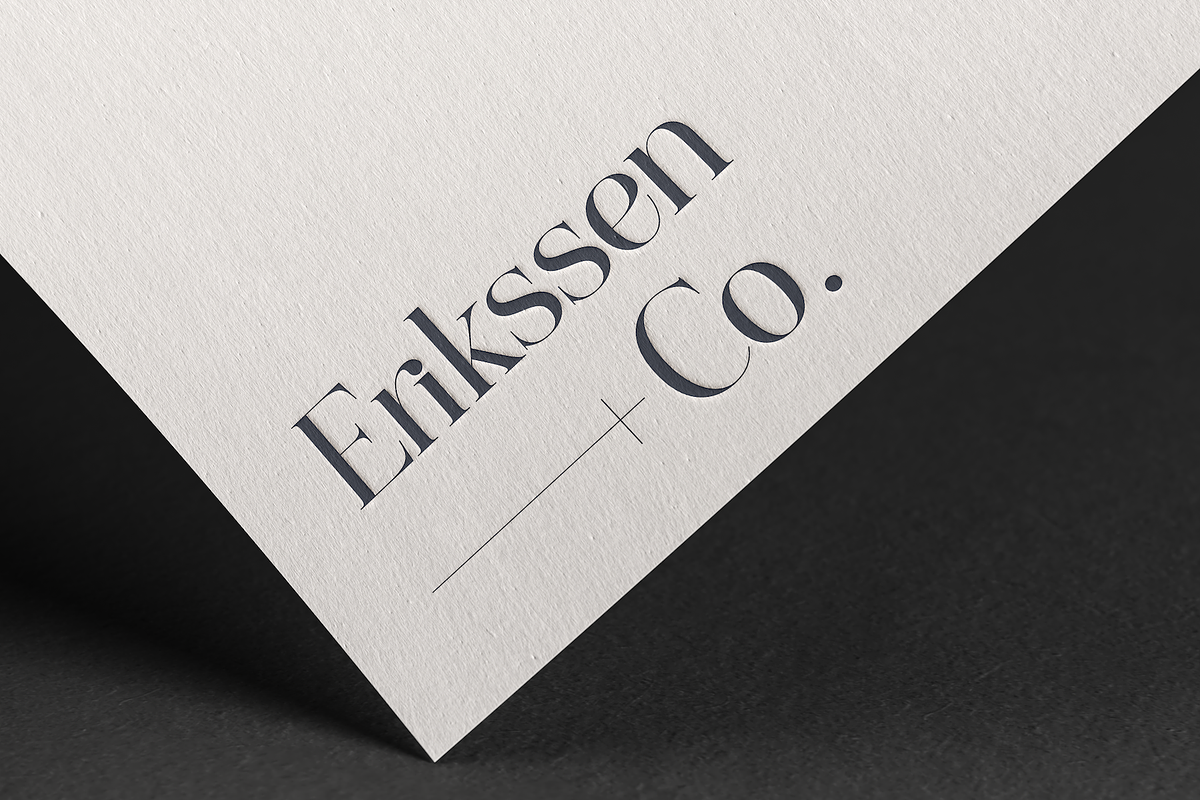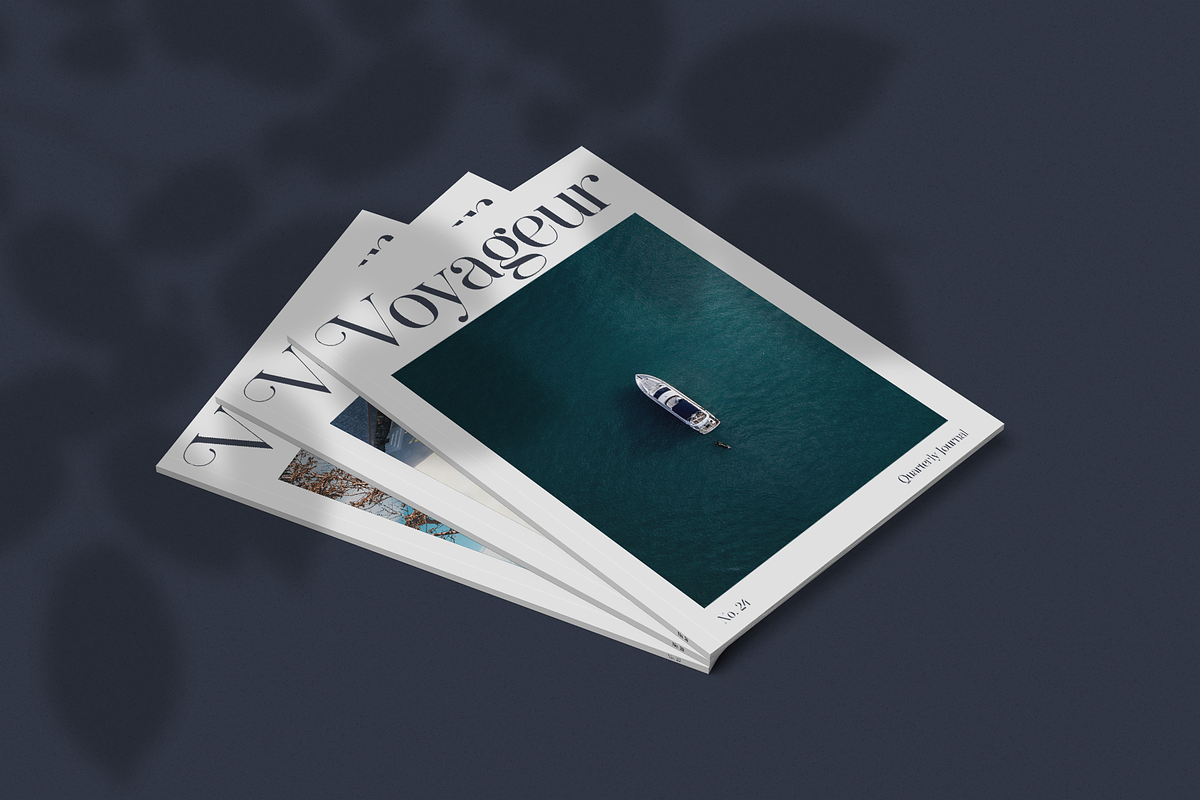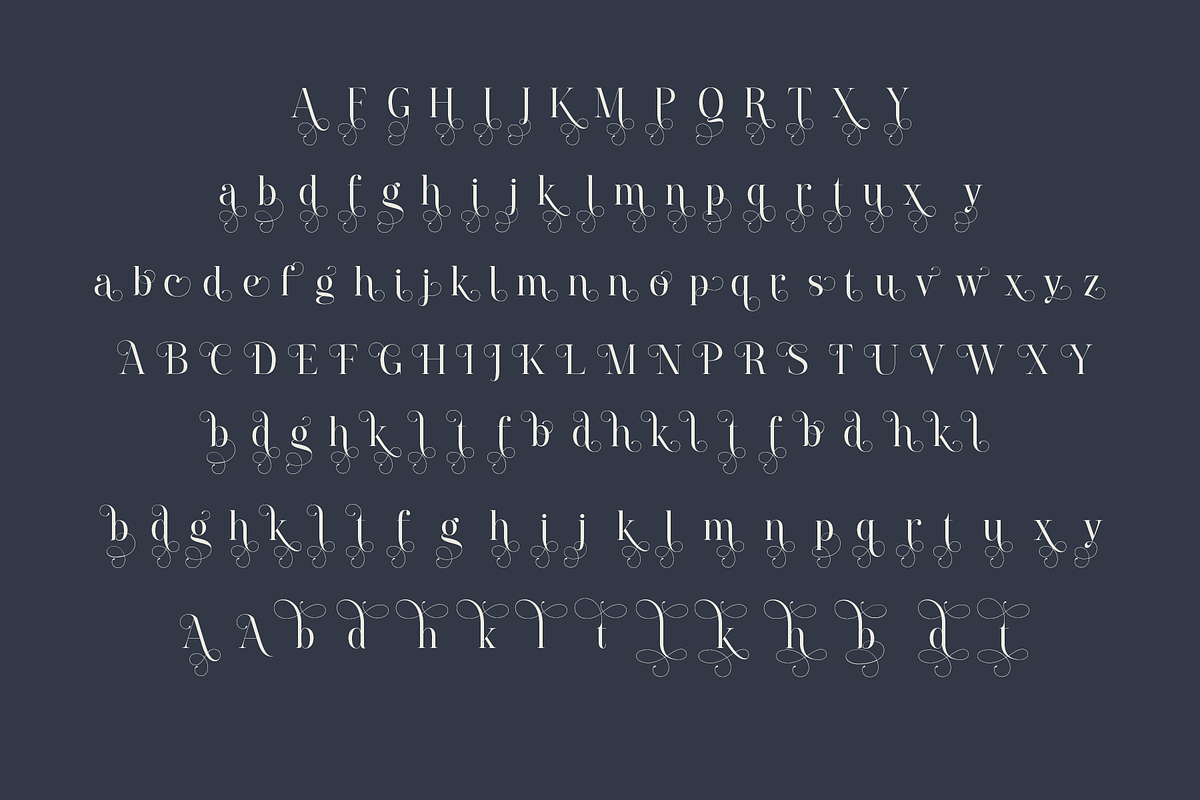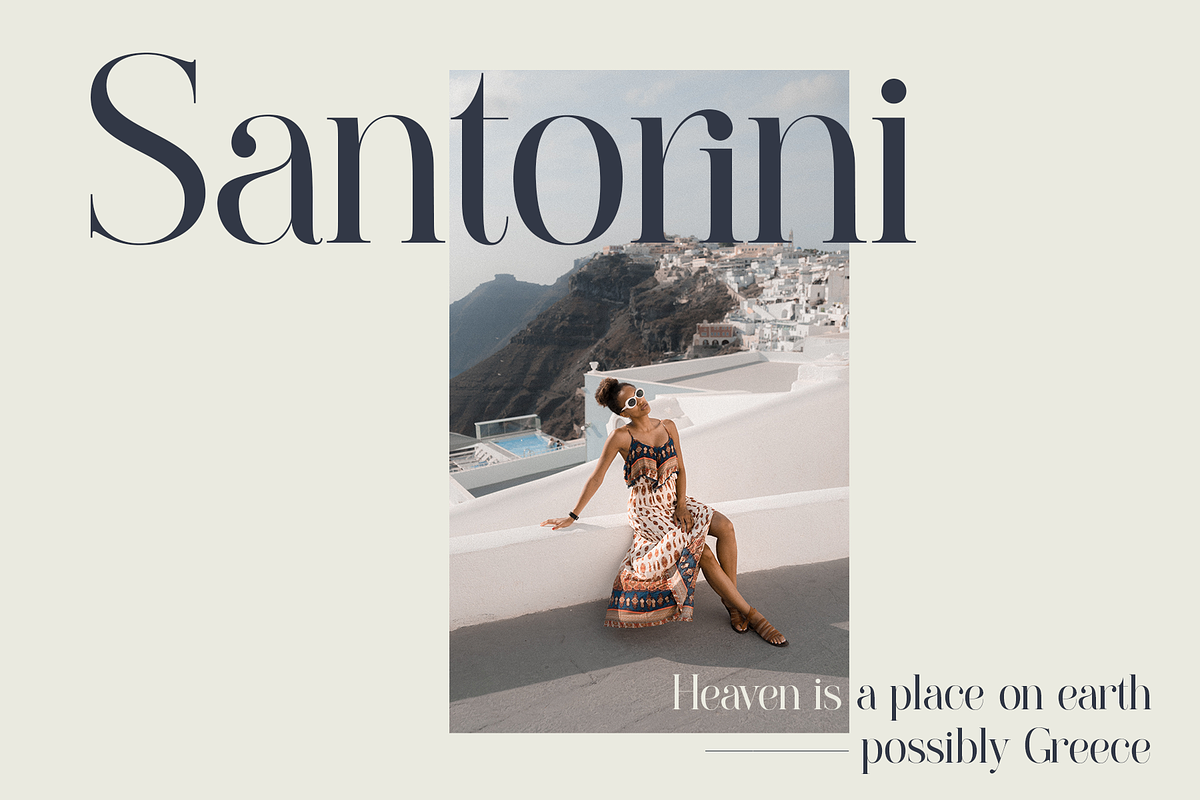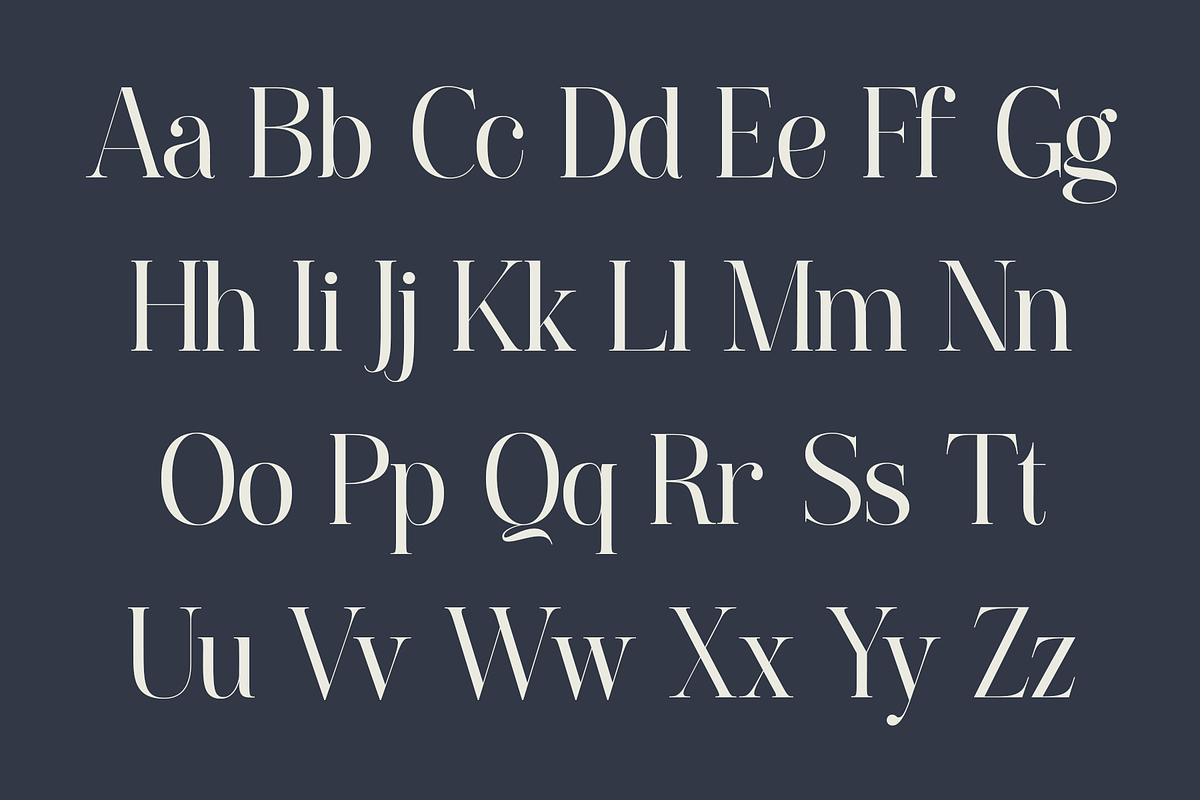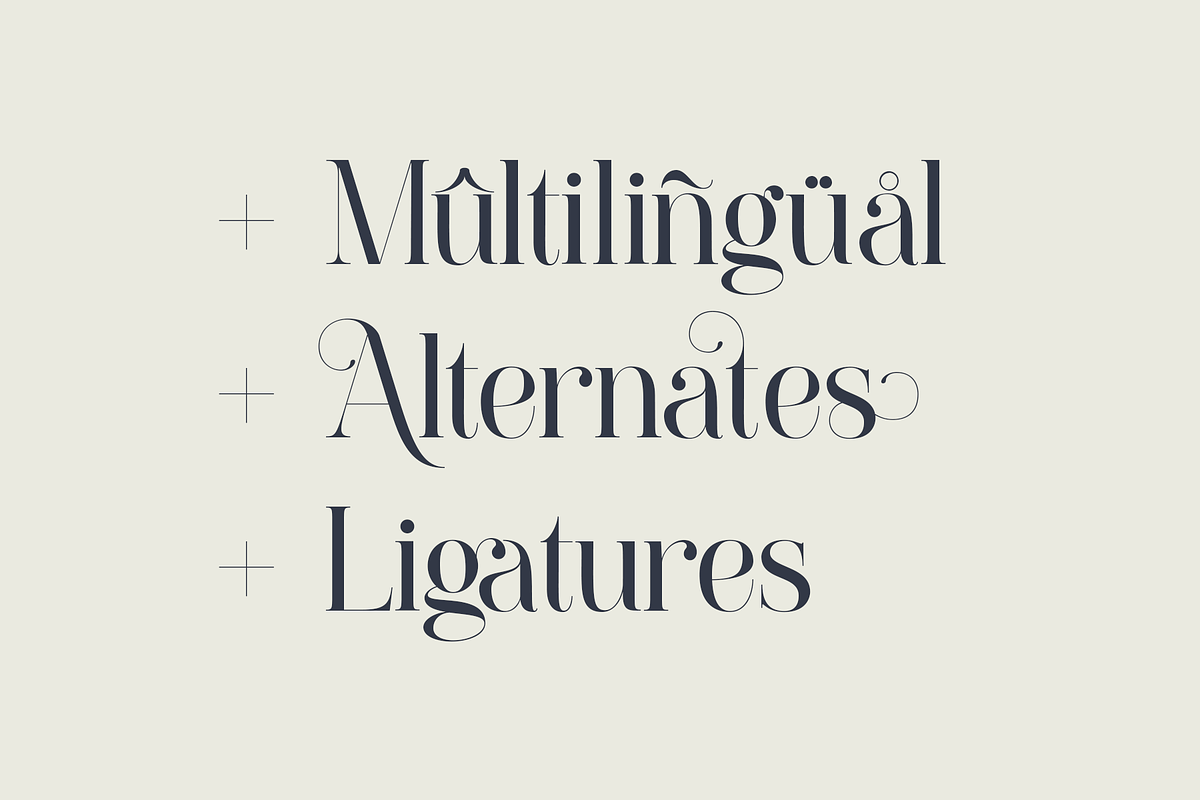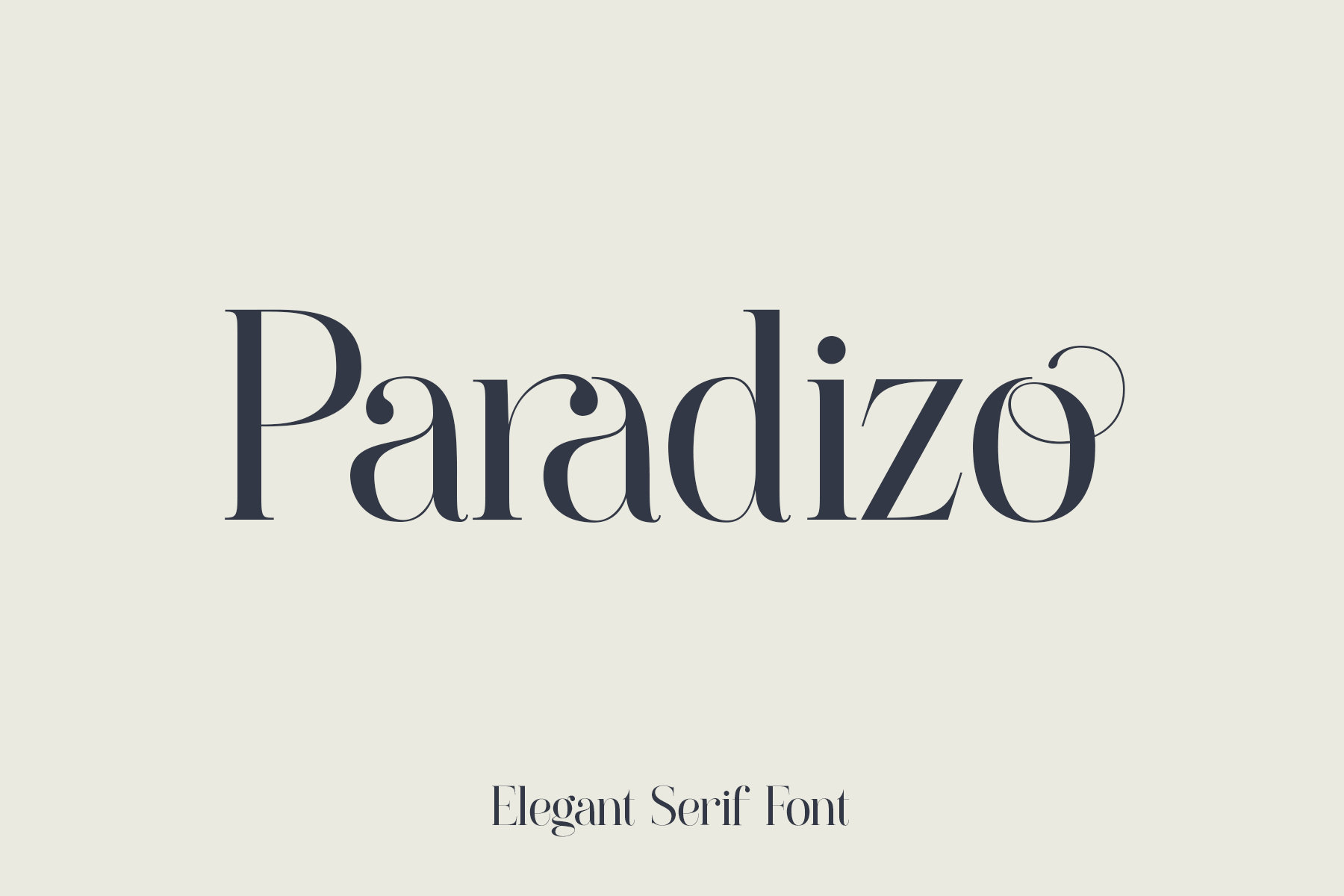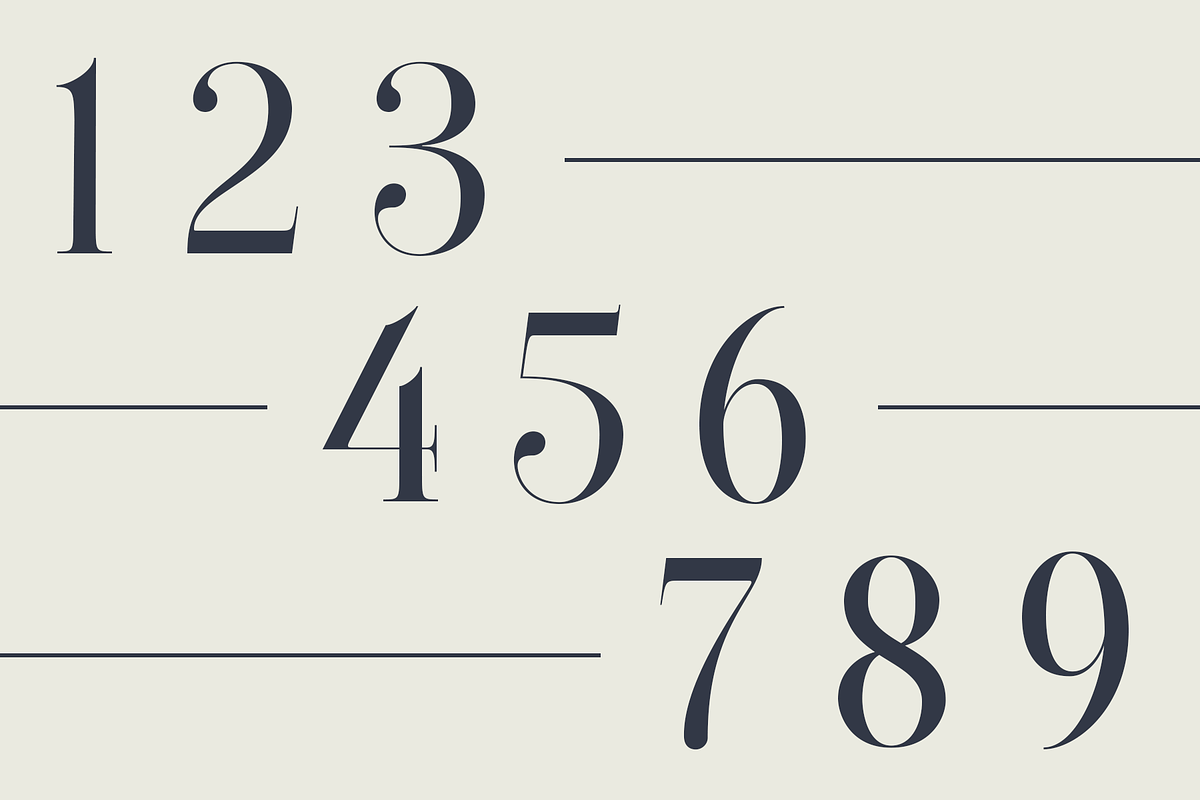
Paradizo - Elegant Serif Font
Paradizo is an elegant serif font that features regular & oblique versions.
This font features a large number of alternates & ligatures which will help you create unique luxurious designs with ease.
Great for editorial design, branding, web design, product design & much more!